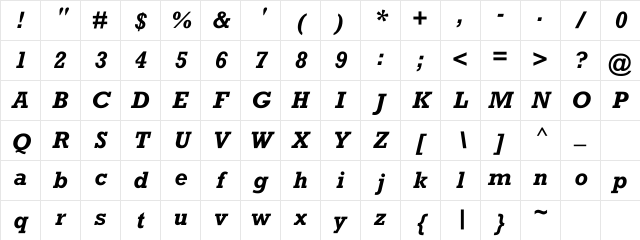
MemRockwell BoldItalic
Design Context for MemRockwell
MemRockwell is a composed and adaptable typeface that performs quietly and consistently across a wide range of design contexts. The slanted form adds forward momentum and visual energy. Its bold stroke weight gives it real presence on the page.
Pro Tip: Use MemRockwell for emphasis, pull quotes, and subheadings where its slanted energy can add rhythm to the layout.